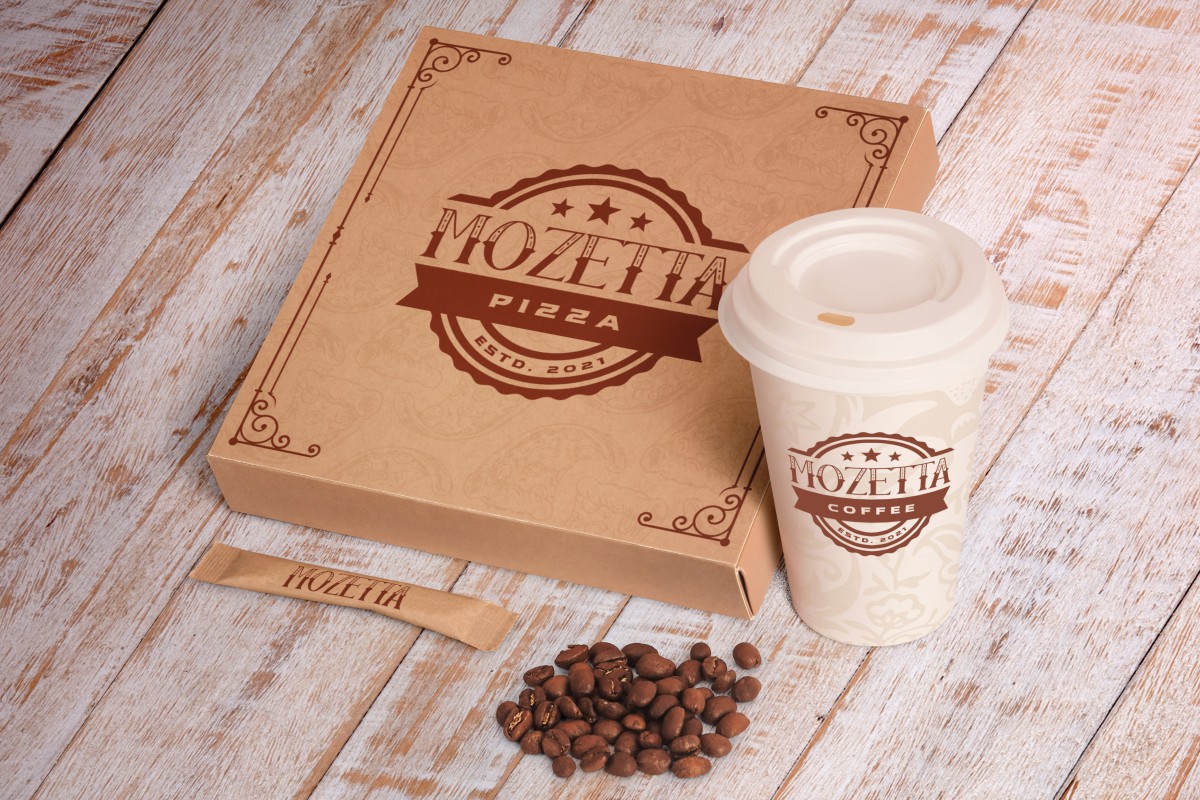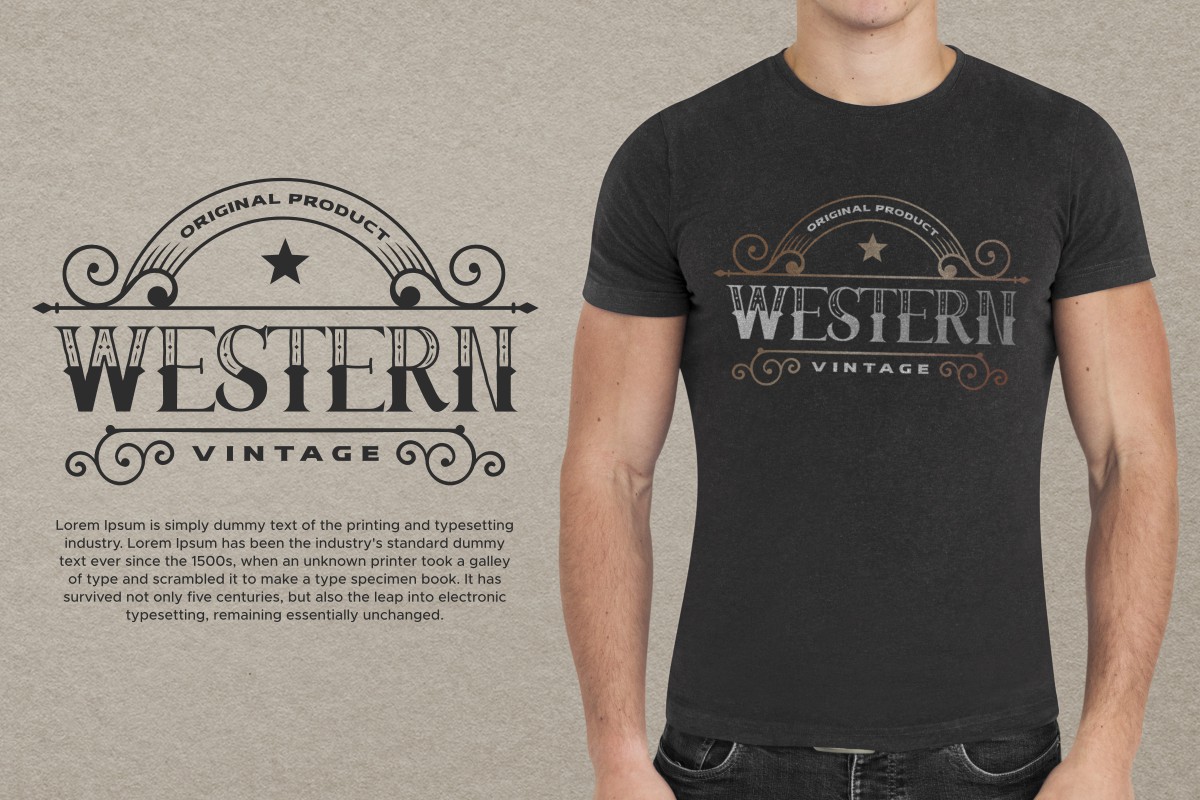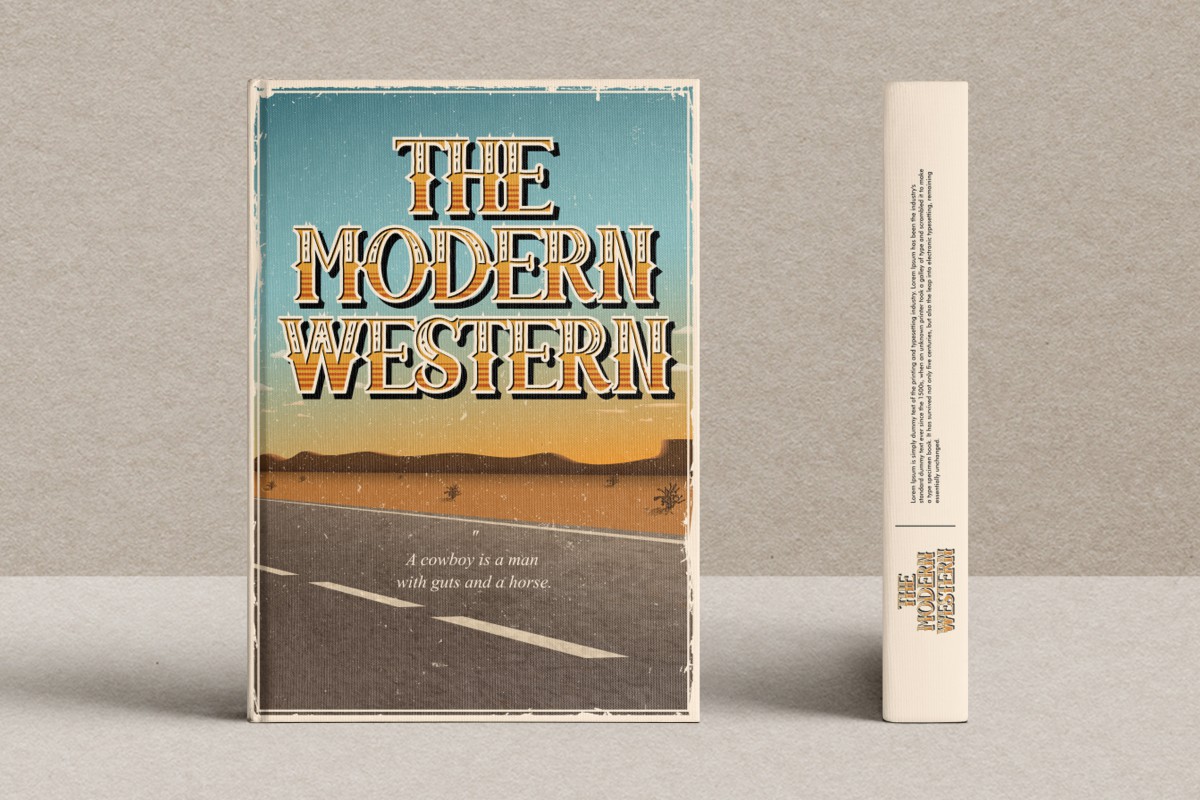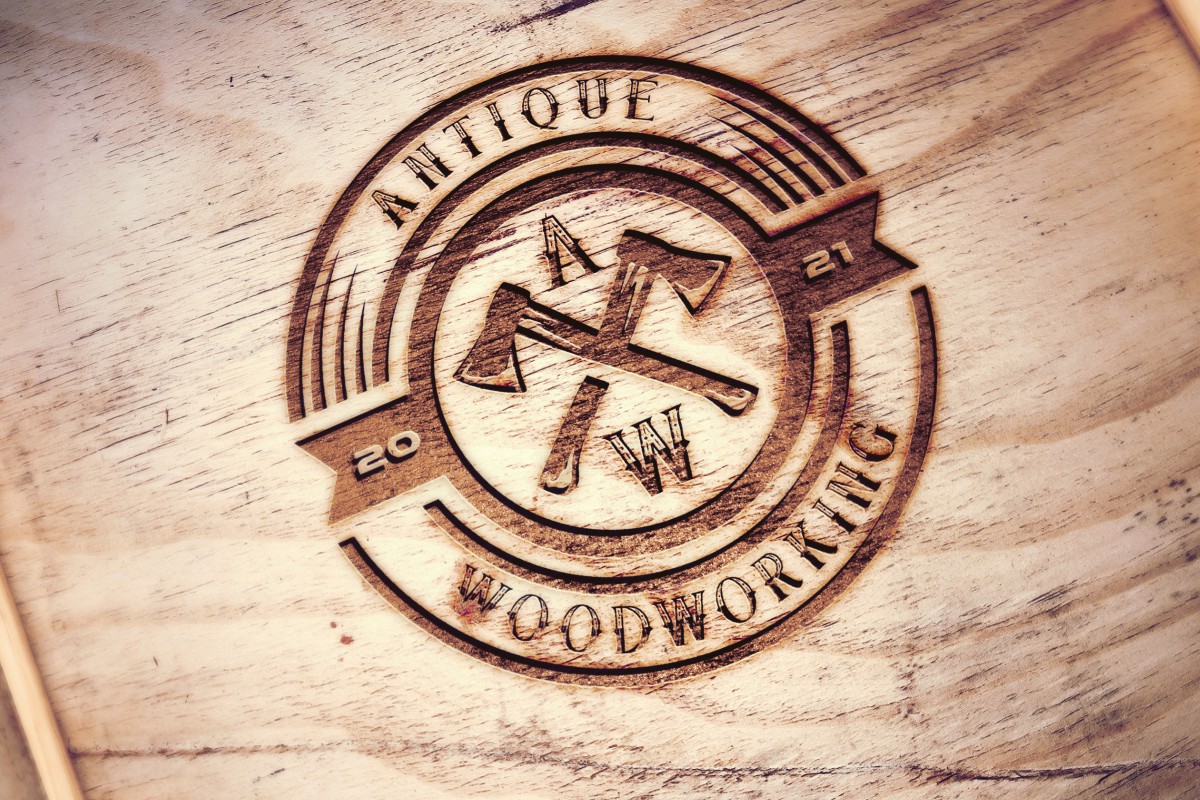
New Cowboy Font
New Cowboy Display Font
This is display font inspired from classic american cowboys era. This font bring vintage and retro vibes with unique strips effect on the letters with antique style. The font will be amazing for any project including : festival, party, cafe, comic, games, products, and many more